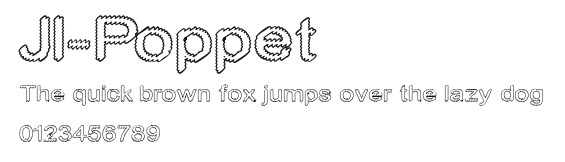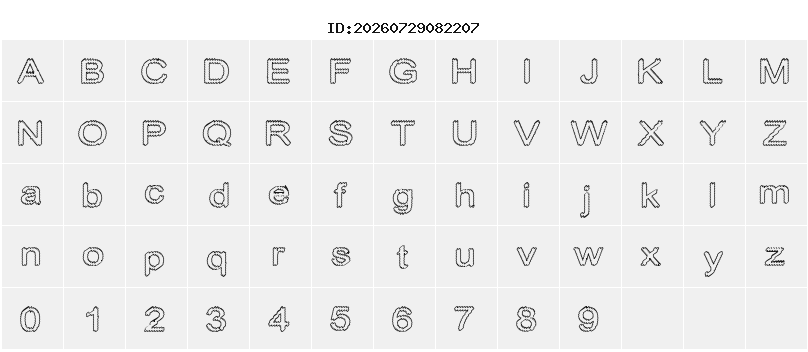
JI-Poppet Preview
• Font Name: JI-Poppet
• Full Font Name: JI-Poppet
• PostScript Name: JI-Poppet
• Designer: JupiterImages
About JI-Poppet.ttf
JI-Poppet.ttf is a modern, elegant sans-serif font designed for ultimate readability and visual harmony. Perfect for branding, headlines, web design, and print materials.